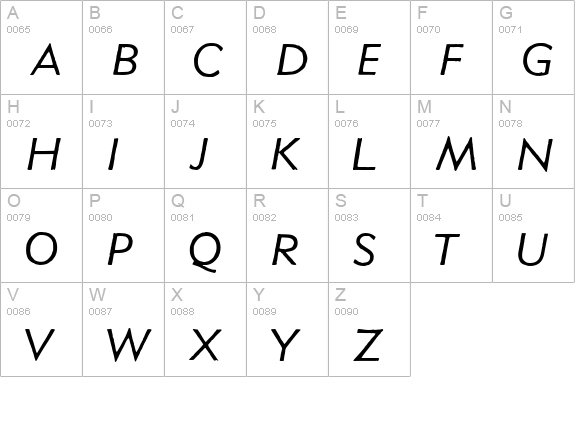
Metro Lite Oblique HPLHS is a distinctive, italic variant in the Metro typeface family \xE2\x80\x94 well suited to design and typography projects.
Metro Lite Oblique HPLHS font is a modern and stylish typeface that exudes elegance and sophistication. With its sleek oblique design, this font is perfect for adding a touch of contemporary flair to any project. The Metro Lite Oblique HPLHS font features clean lines and a streamlined appearance, making it versatile and easy to read. What's even better is that this gorgeous font is available for free download at FontsMarket.com. Whether you're working on a website, a poster, a logo, or any other design project, Metro Lite Oblique HPLHS font is sure to make a statement. Don't miss out on the opportunity to enhance your work with this beautiful and professional font – download it today for free at FontsMarket.com!